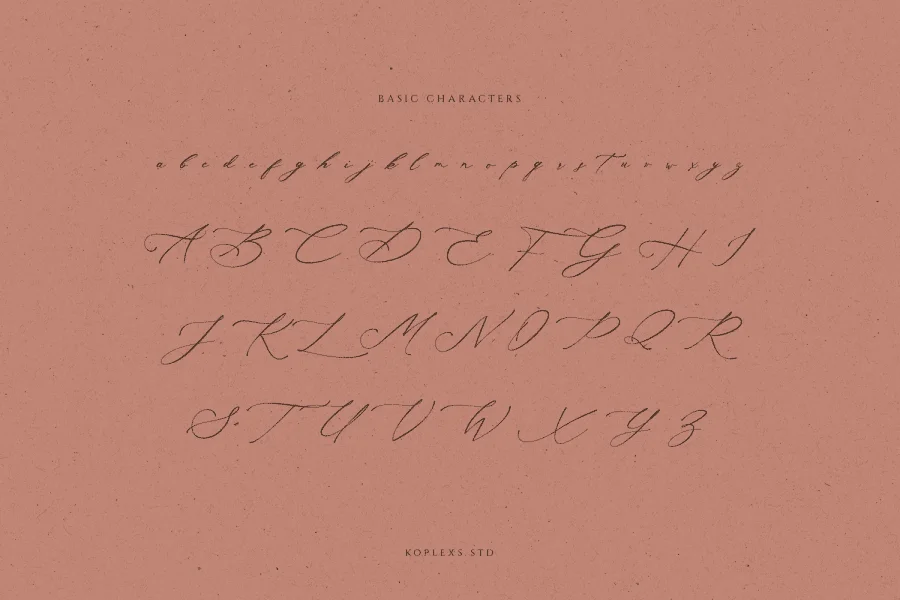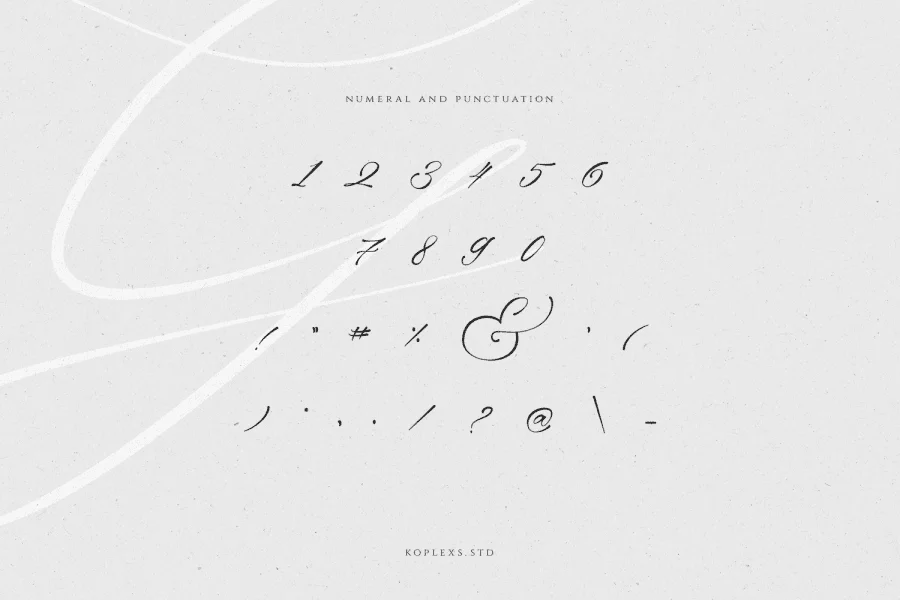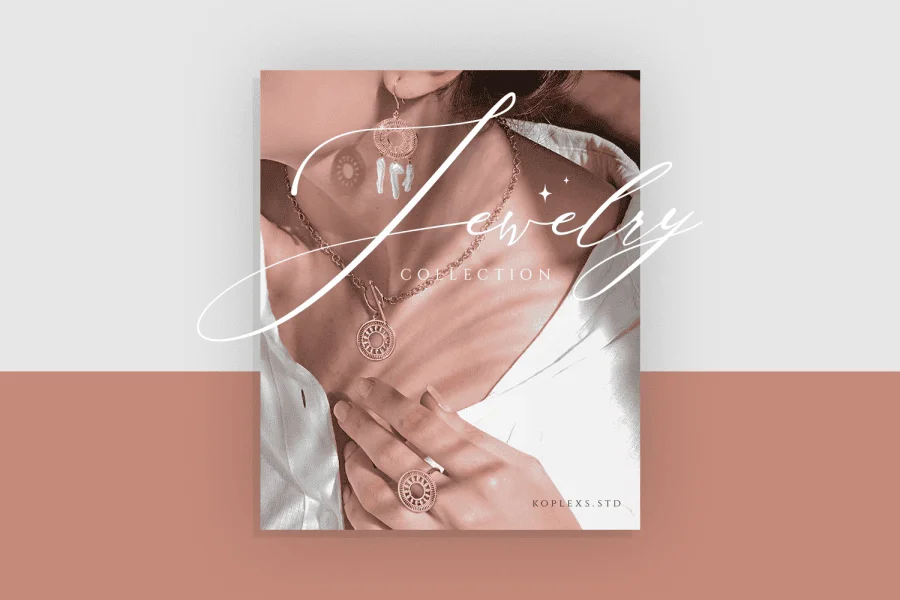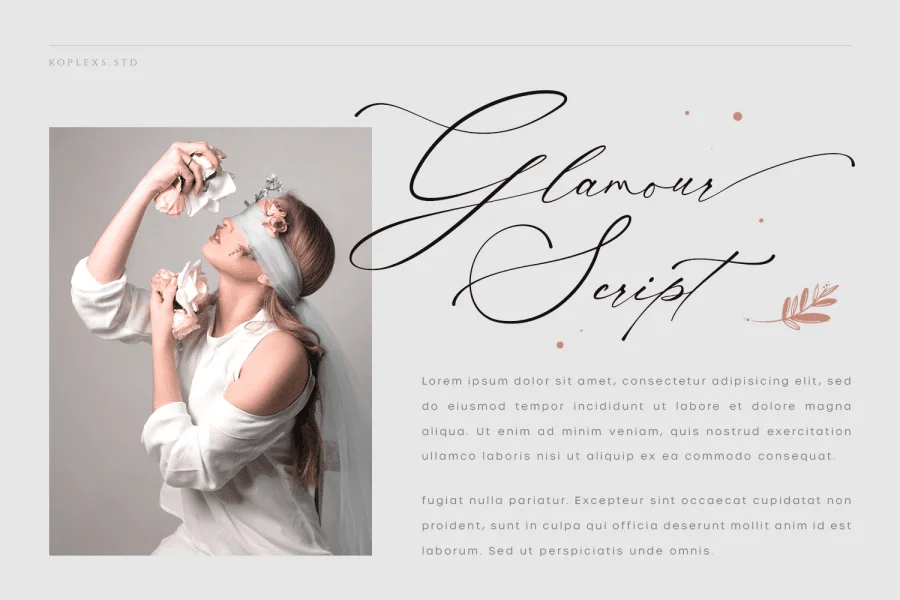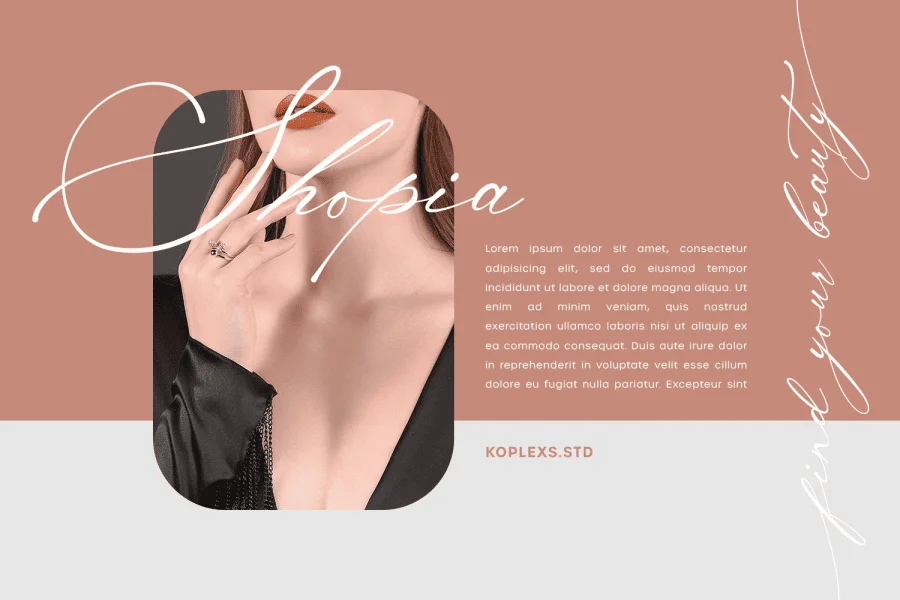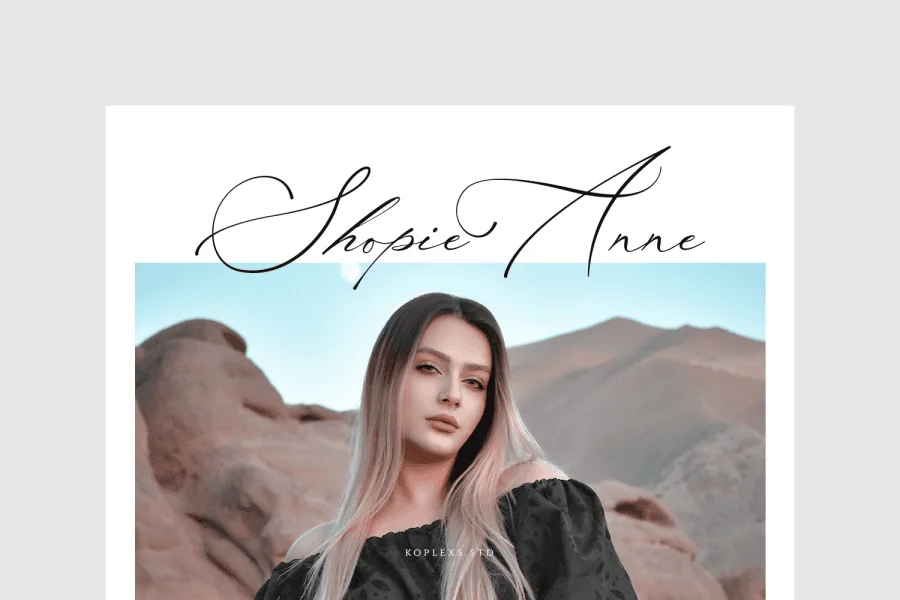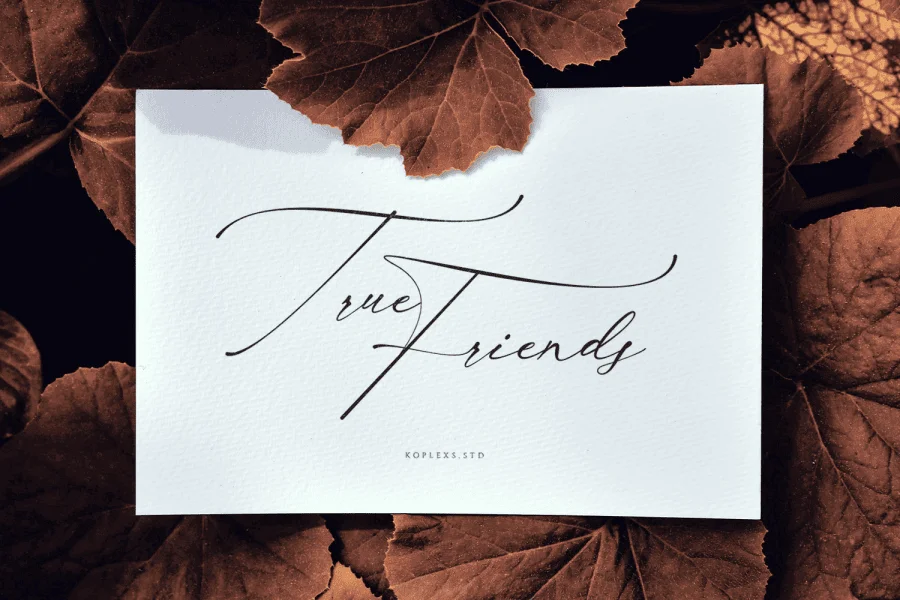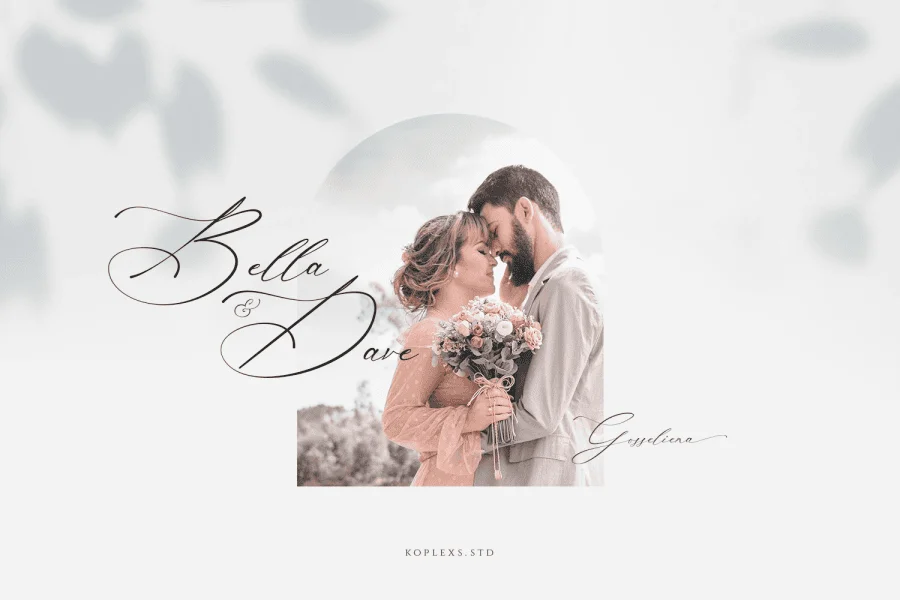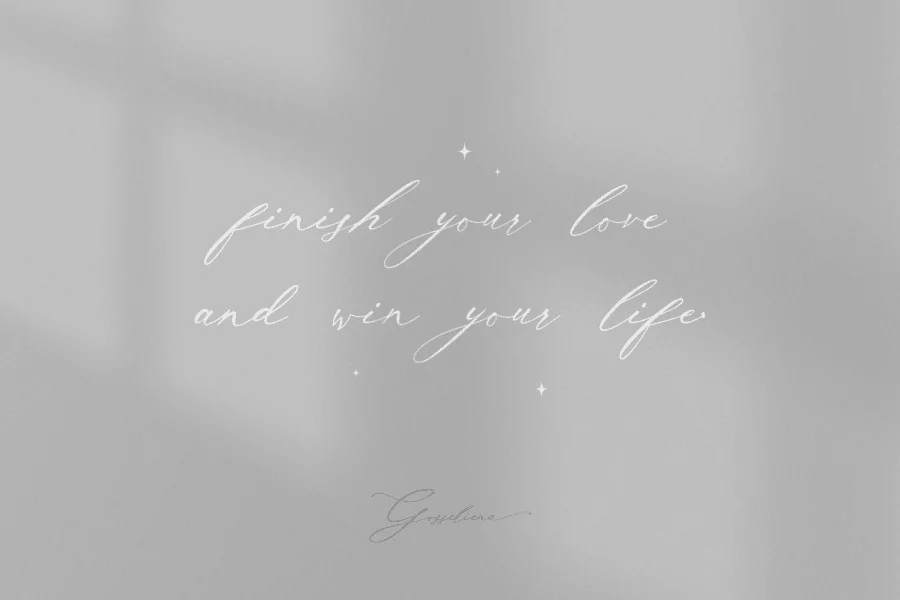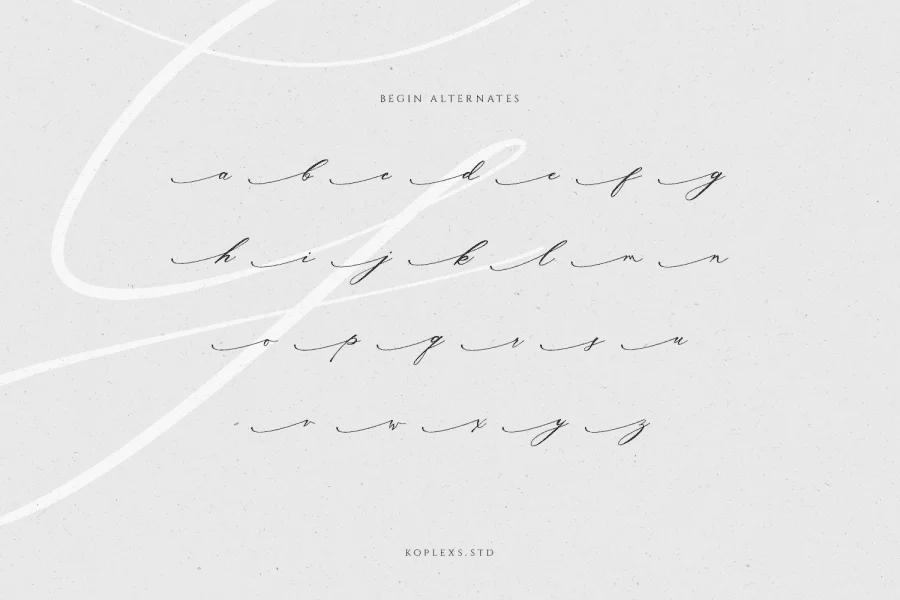
Gosseliena Font
Gosseliena – Handwritten Signature Font
Gosseliena Font is a stylish and sophisticated typeface designed to emulate the elegance of a personal signature. With its fluid, natural strokes and refined curves, this font exudes confidence and luxury, making it perfect for branding, logos, business cards, and high-end invitations. The subtle variations in line weight and graceful letterforms add an authentic handwritten charm, ensuring your designs feel exclusive and professional while maintaining a personal touch.
Ideal for fashion brands, wedding stationery, and luxury product packaging, Gosseliena strikes the perfect balance between artistry and readability. Its versatile design works beautifully for both digital and print media, adding a timeless, signature-inspired flair to any project. Whether used for a sleek logo or an elegant headline, this font captures attention with its effortless sophistication, leaving a lasting impression of class and individuality.